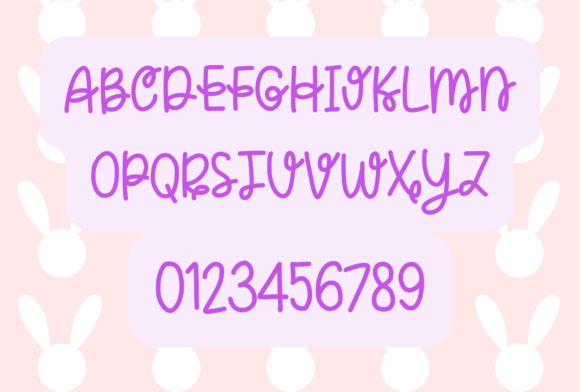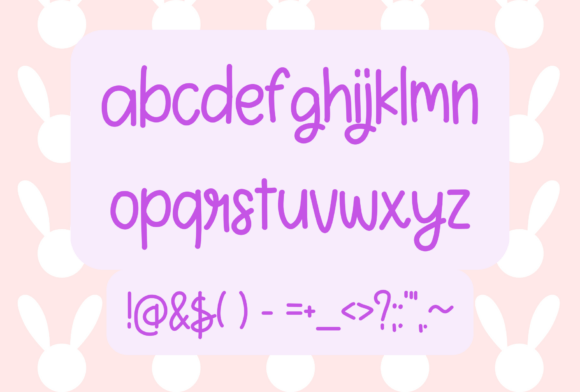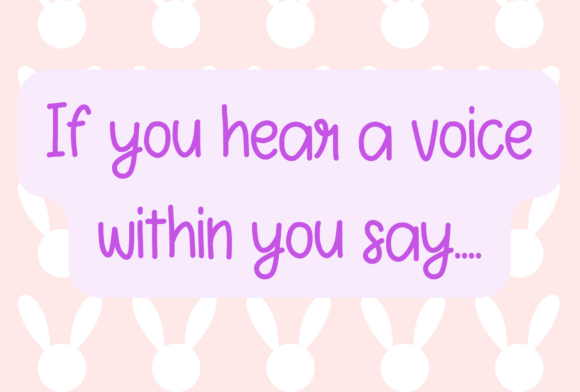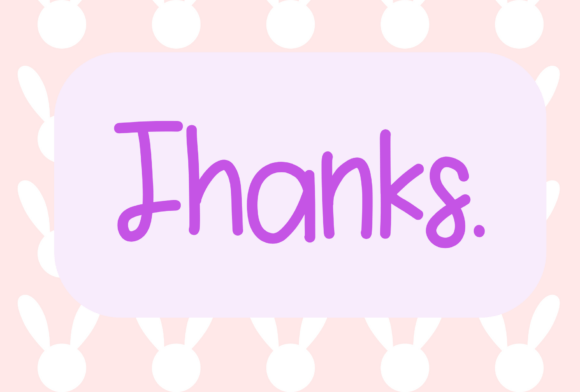
Introduction to Mona Lisa Font
As a creative, there’s nothing quite like the thrill of brainstorming a new idea. The spark of inspiration ignites, and before you know it, your mind is racing with possibilities. This is exactly what happened when I stumbled upon the Mona Lisa Font – a charming, handwritten script that has since become my go-to choice for digital note-taking and creative projects. With its unique blend of elegance and playfulness, this font has a way of bringing a personal touch to even the most mundane designs.
Whether you’re a seasoned designer or just starting out, the Mona Lisa Font is a valuable addition to your toolkit. Its versatility makes it perfect for a wide range of projects, from blog posts and logos to digital planners and invitations. Plus, with its transparent background and high-quality design, you can rest assured that your work will look its best – no matter what device you’re working on.
Mona Lisa Font
- Unique, elegant script font with a transparent background
- Includes a wide range of characters, including uppercase and lowercase letters, numbers, and punctuation
- Perfect for designers and artists looking for a sophisticated, yet subtle font for their projects
Honest Review: Mona Lisa Font
As a designer, I’ve had my fair share of experimenting with various fonts for creative projects. Recently, I stumbled upon the Mona Lisa Font, and I must say, it’s an intriguing find.
- ✨ High-quality design: The font boasts a sophisticated and elegant aesthetic that’s perfect for upscale projects.
- ✨ Transparent background: This feature allows for seamless integration with various design elements and backgrounds.
- ⚠️ Limited character set: The font only includes a limited set of characters, which might not be suitable for complex texts or projects.
- ⚠️ Not ideal for body text: The font’s elegance and sophistication make it better suited for headlines or titles rather than body text.
Overall, I’d say the Mona Lisa Font is a great addition to any designer’s arsenal, particularly for creative projects that require a touch of sophistication. While it may have some limitations, its high-quality design and transparent background make it a valuable resource for designers looking for a unique and elegant font.
The Mona Lisa Font is commonly used in creative projects that require a touch of elegance and sophistication, such as:
– Invitations and event graphics
– Social media graphics and posters
– Presentations and reports
– Documents and brochures